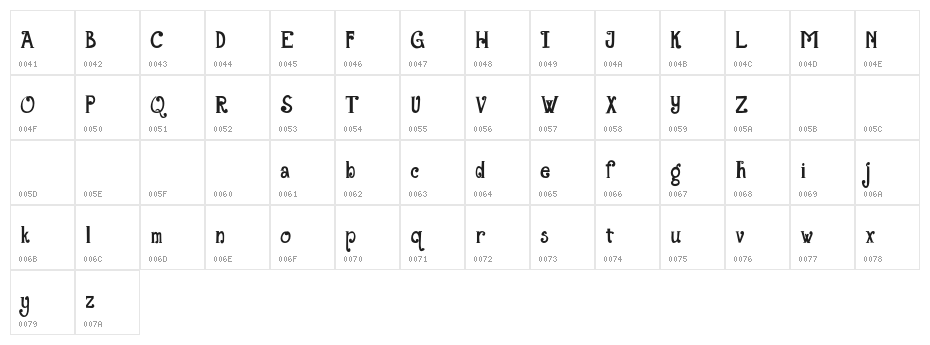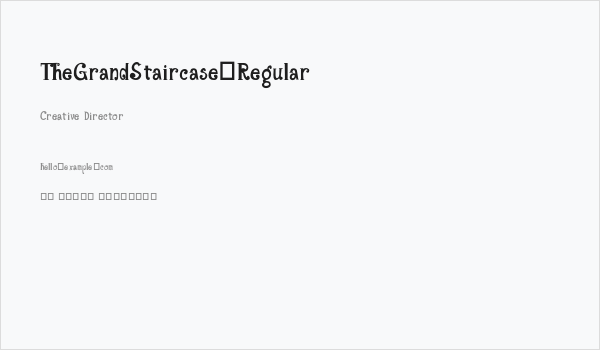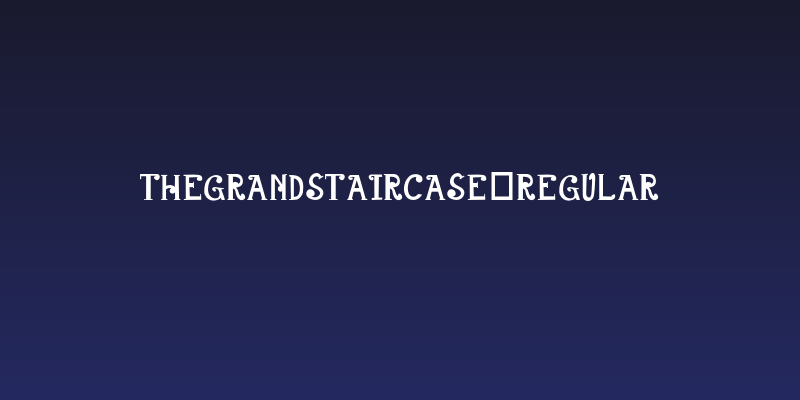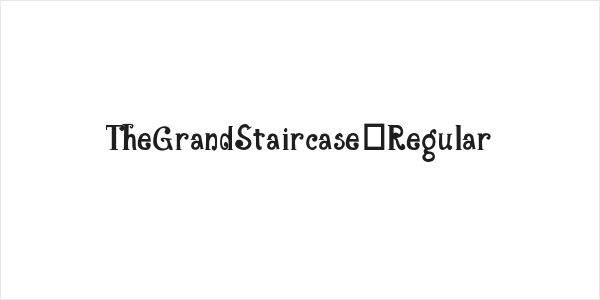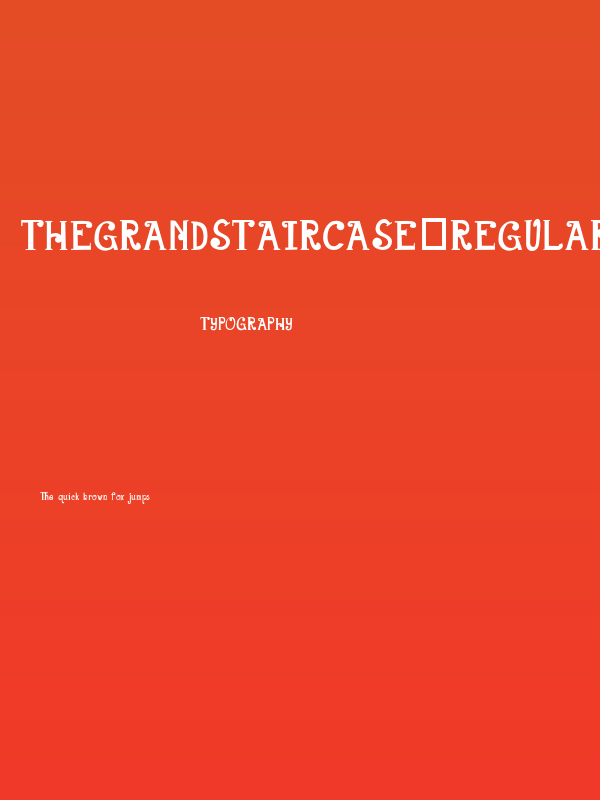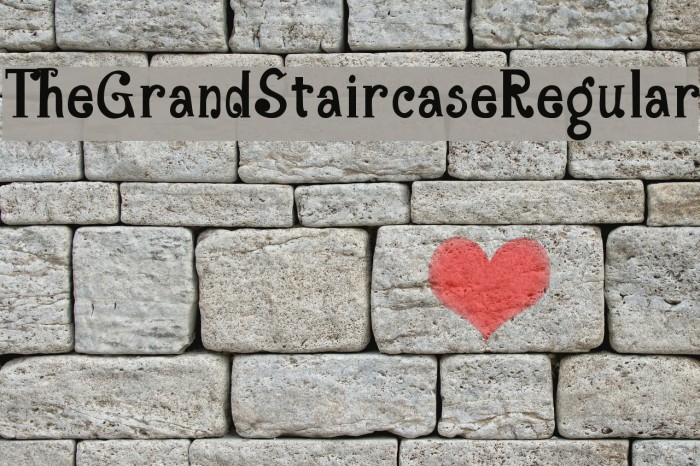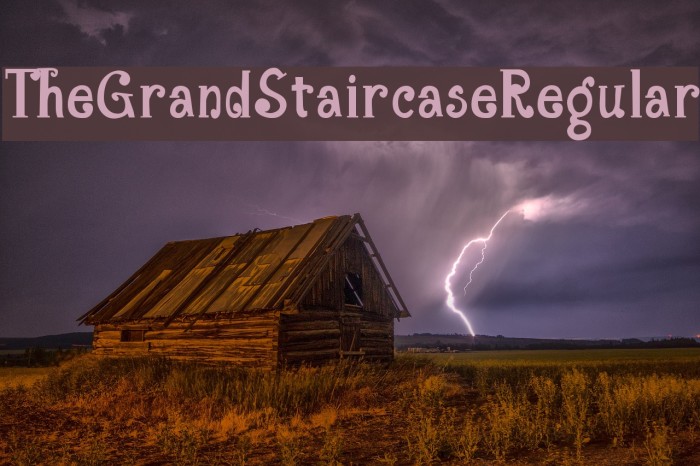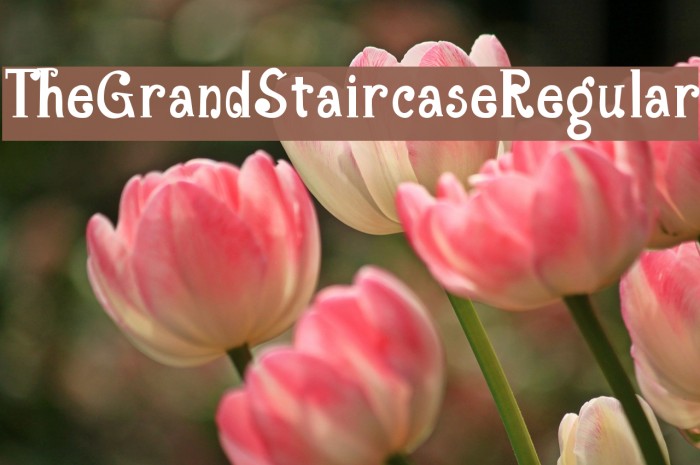
TheGrandStaircase-Regular Font
TheGrandStaircase-Regular Description
This font features a whimsical and decorative style, characterized by its playful and slightly quirky letterforms. The uppercase letters have a bold presence with unique serifs and varying stroke widths, giving them a dynamic appearance. The lowercase letters maintain the decorative theme with distinctive curves and flourishes. The overall design is reminiscent of vintage or retro styles, making it suitable for creative and artistic projects. The font's unique character shapes and decorative elements make it stand out, adding a touch of personality and charm to any design.
| Proposed Projects | Ideal for posters, invitations, branding, and any project requiring a creative and artistic touch. |